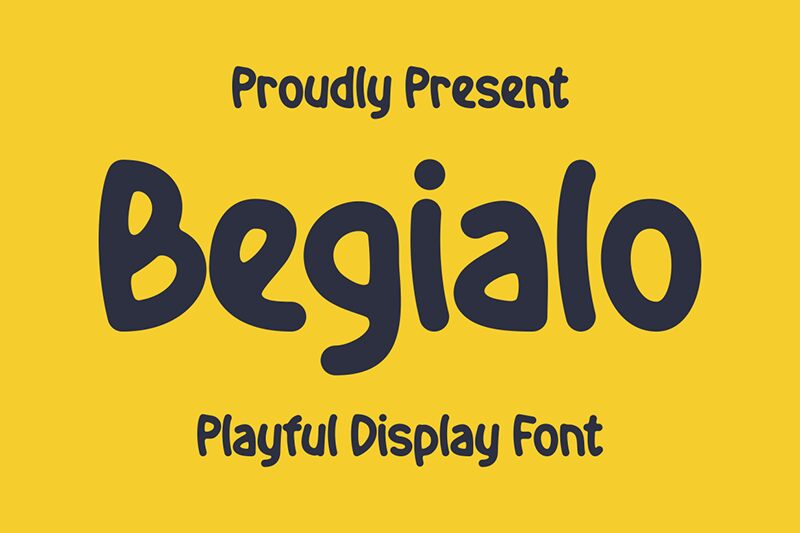
Begialo
Begialo font by Gilang Ternadho is a cartoon display typeface with an organic and smooth flow. It projects friendliness with quirky letterforms and has an overall inviting appeal. This modern typeface is wonderfully readable giving off a cool and modern effect.